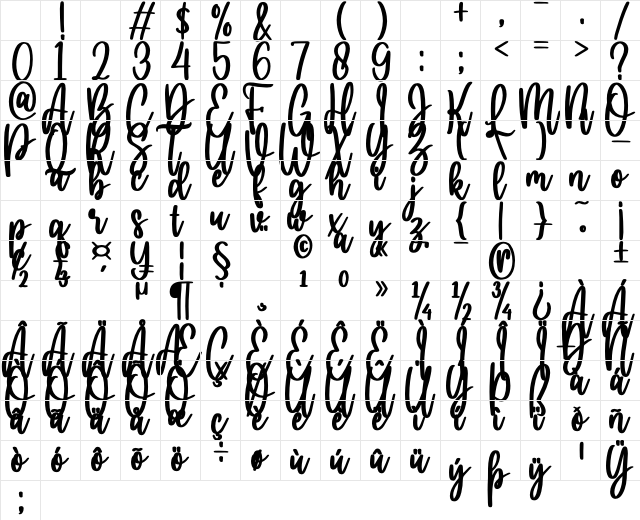
Complete hello bella Bold glyph index. Displaying only characters natively supported by hello bella Bold font.
hello bella is a composed and adaptable typeface that performs quietly and consistently across a wide range of design contexts. Its bold stroke weight gives it real presence on the page.